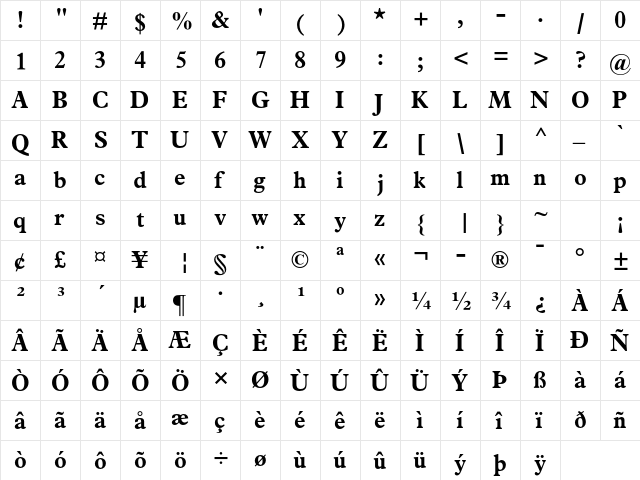
News Plantin MT Std Bold
Design Context for News Plantin MT Std Typeface
News Plantin MT Std offers clean, dependable letterforms without strong stylistic allegiance, making it a practical choice for designers who need flexibility. The heavy weight commands attention and anchors typographic hierarchies.
Pro Tip: Pair News Plantin MT Std with a font of contrasting weight or personality to build a more expressive typographic hierarchy.